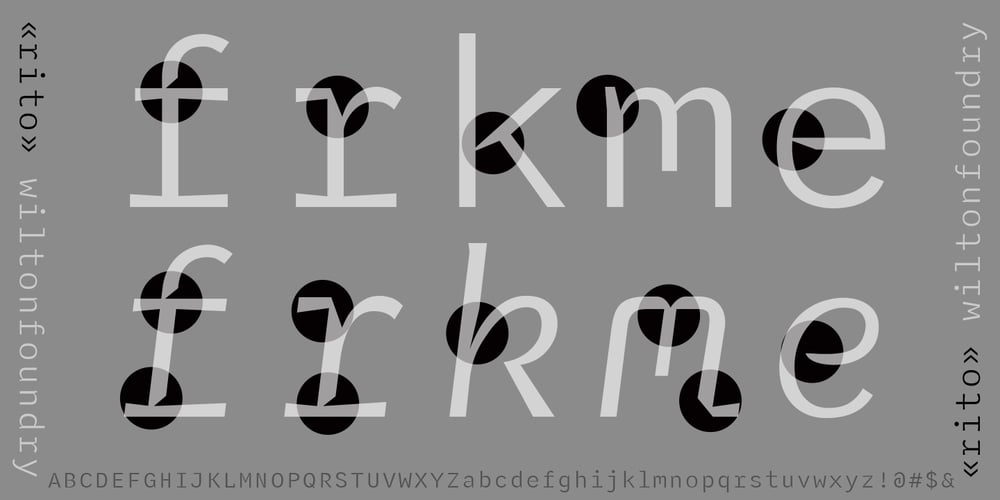
Rito Font Family was designed by Robbie de Villiers and published by Wilton Foundry. Rito contains 2 styles and family package options. Rito Regular and Italic is a clean, crisp and modern monospaced font ready to make your work shine. Its distinctive ink-trap inspired chiseled glyphs create a unique flavor that is more pronounced in the italics. Rito is not your typical monospaced boring font – from the outset the goal was to develop an exuberant, dynamic and contemporary mono-spaced font. Ideal for coding, writing and has plenty of attitude to stretch into display formats!